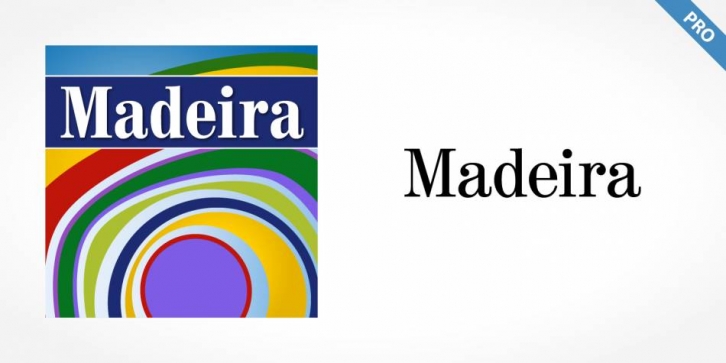
Madeira Pro is a serif font family. This typeface has four styles and was published by SoftMaker.
Madeira Pro is an excellent selection for body text in magazines and newspapers. The typeface features a characteristic x-height, and attention-grabbing serifs.
· Madeira Pro Regular
· Madeira Pro Italic
· Madeira Pro Medium
· Madeira Pro Condensed Medium